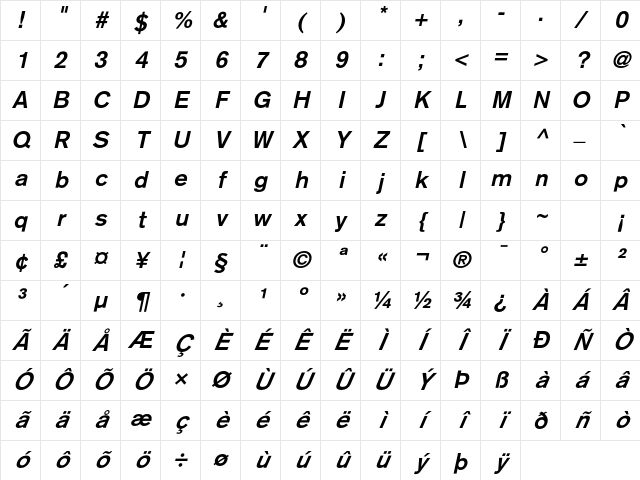
Complete AkzidenzGrotesk BoldItalic glyph index. Displaying only characters natively supported by AkzidenzGrotesk BoldItalic font.
AkzidenzGrotesk takes a clean, functional approach - its unadorned letterforms prioritise legibility and work reliably across screen and print environments. The slanted form adds forward momentum and visual energy. Its bold stroke weight gives it real presence on the page.